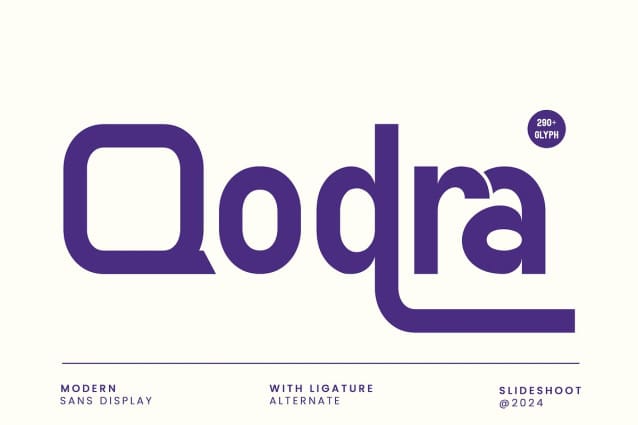
Qodra Font
Qodra Font is a modern sans serif font with geometric details. Qodra Font is the perfect choice for all creative endeavors, such as invitation card designs, company logos, magazines, business cards, book titles, brand names and various other designs. Its stylish alternation and binding make this font the perfect partner for any project.